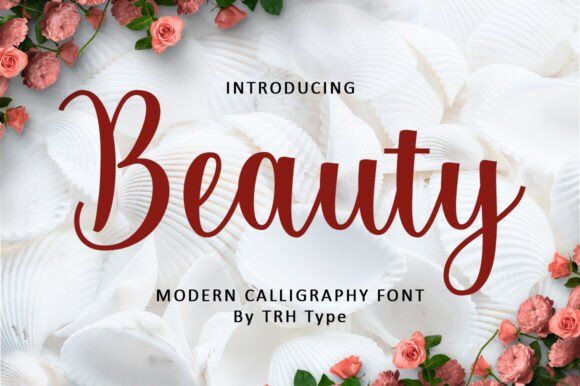
11 Feminine Fonts for Beauty Packaging That Make Brands Look Luxurious
Beauty packaging works a little differently from most product design.
People usually notice the label before they notice the formula. Before they test the serum texture, smell the candle, or swatch the lipstick, theyโve already formed a first impression from the packaging sitting on a shelf or showing up in an Instagram Reel.
And typography quietly does a lot of that work.
Iโve tested dozens of script fonts on mock skincare labels and candle mockups over the past year, and honestly, some fonts that look stunning in previews completely fall apart once theyโre printed small. Others feel too formal, too trendy, or just hard to pair with modern packaging layouts.
The fonts in this list are the ones that actually feel usable for beauty branding. Some lean minimalist and modern. Others are softer and more romantic. A few work especially well for luxury packaging with foil stamping and muted color palettes.
If you're building branding for skincare, perfume, candles, cosmetics, wellness products, or boutique packaging, these are worth looking at.
Many of these typefaces were originally designed specifically for branding and packaging projects. For example, Beauty Baey is described as โa flowing handwritten font with an elegant touch,โ while Relaytemore focuses on understated modern elegance with smooth monoline strokes that work surprisingly well on real packaging layouts.
Letโs get into the fonts that actually make beauty packaging feel elevated instead of generic.
11 Best Feminine Fonts for Beauty Packaging
1. Beauty Baey
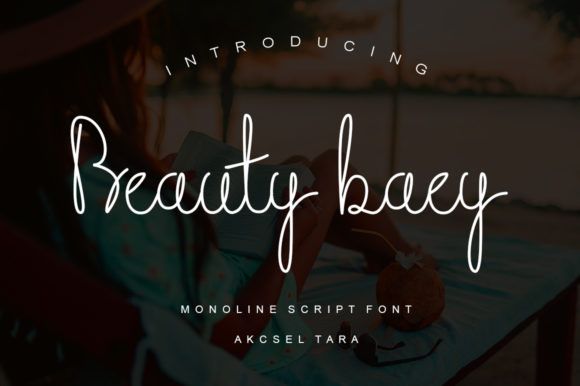
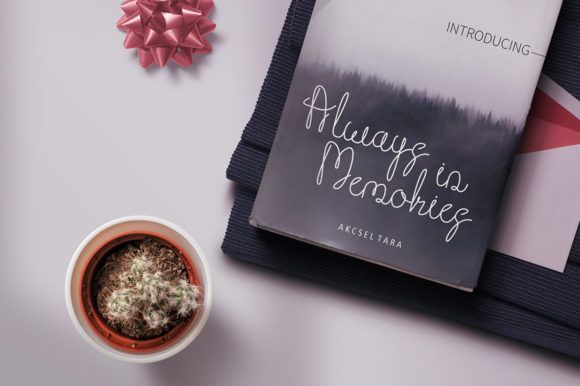
Beauty Baey has a very relaxed kind of elegance.
Instead of looking overly polished or dramatic, it feels natural and modern โ almost like stylish everyday handwriting, but cleaner.
The official specimen describes it as โa flowing handwritten font with an elegant touch,โ and that honestly sums it up pretty well.
What I like most about this font is how usable it feels.
A lot of feminine scripts look amazing in previews but become difficult once applied to actual packaging layouts.
Beauty Baey holds up surprisingly well on:
- skincare labels
- candle jars
- perfume packaging
- wellness branding
- minimalist cosmetic boxes
The monoline structure helps readability a lot.
I also think this font works especially well with muted packaging palettes:
- nude tones
- warm creams
- dusty pinks
- matte white packaging
- rose gold accents
It feels feminine without trying too hard.
For brands aiming toward minimalist luxury instead of dramatic glamour, Beauty Baey is probably one of the safer long-term choices on this list.
2. Callisa Beauty
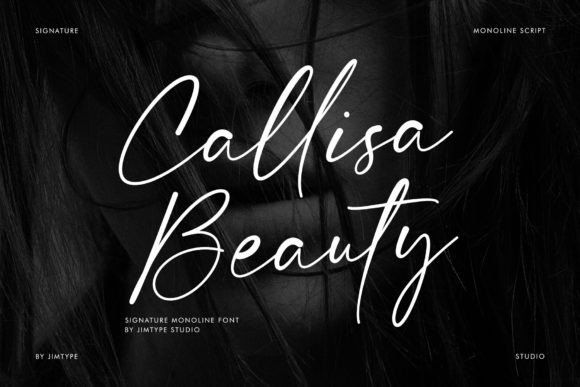
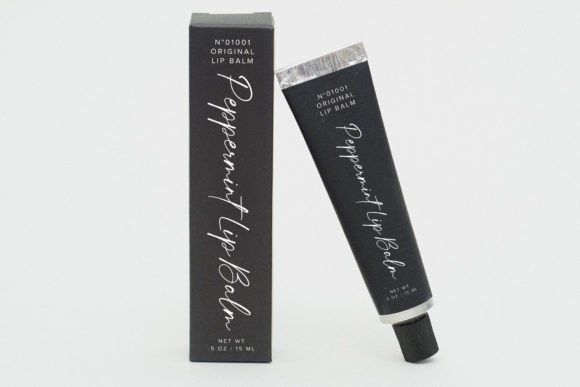
Callisa Beauty leans softer and more refined.
The lettering feels airy and intentional, almost like modern signature calligraphy rather than traditional decorative script.
This is the type of font Iโd naturally associate with:
- premium facial serums
- boutique perfumes
- spa products
- feminine wellness branding
The spacing is handled really nicely too. That sounds minor, but poor spacing ruins a lot of script fonts once theyโre placed on packaging.
Callisa Beauty has enough personality to feel premium without overwhelming the design around it.
It also pairs beautifully with minimalist uppercase sans-serifs. That contrast creates the kind of clean luxury branding thatโs become really common across modern skincare brands lately.
One thing I appreciate is that it still feels readable at smaller sizes. Some elegant scripts lose clarity immediately on labels, but this one stays surprisingly balanced.
3. Hey Beauty
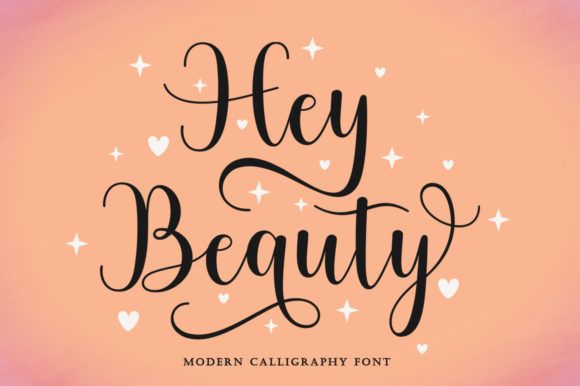
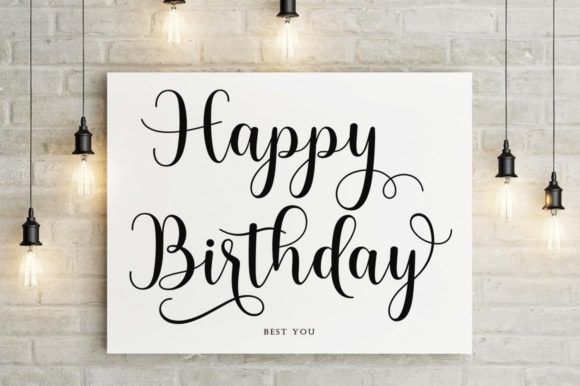
Hey Beauty has noticeably more personality than some of the cleaner minimalist scripts.
It feels expressive, glamorous, and slightly playful without becoming chaotic.
The flowing ligatures and loops give it more visual energy, which makes it a strong fit for:
- makeup branding
- beauty subscription boxes
- influencer product packaging
- colorful cosmetic collections
I could easily picture this font on trendy lip gloss packaging or beauty PR boxes designed for social media unboxings.
What keeps it usable is readability.
Even with the decorative movement, the lettering still feels fairly clean. That balance matters because highly stylized scripts often become difficult to work with across packaging systems.
Hey Beauty feels younger and more social-first than some of the other fonts here. If the brand identity leans modern, expressive, and visually playful, this one makes sense.
4. Winter Beauty
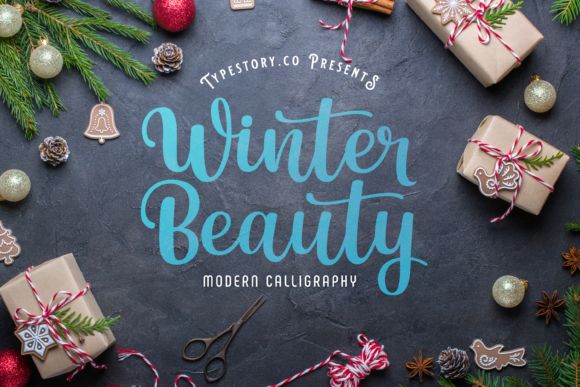
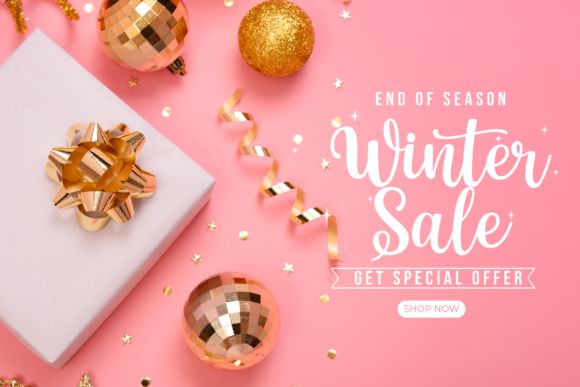
Winter Beauty feels softer and more cheerful than traditional luxury scripts.
How should I pair feminine fonts?
Usually one decorative script font paired with one clean sans-serif font works best. The script adds personality while the supporting font keeps the packaging readable and structured.
Can handwritten fonts still feel modern?
Definitely. Modern handwritten fonts often feel more personal and emotionally engaging than overly polished corporate typography, especially in skincare, wellness, and indie beauty branding.